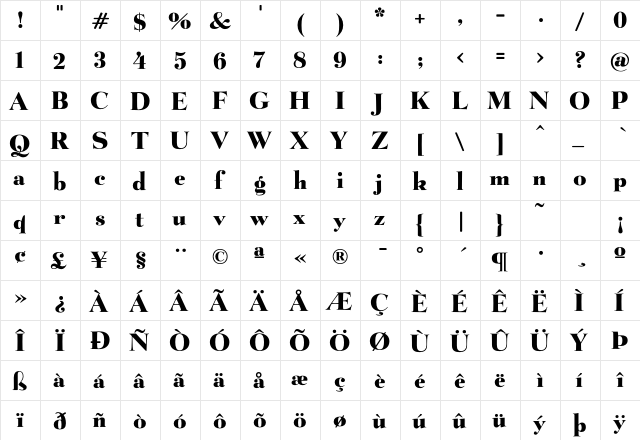
BeLucian FB Ultra Regular
| Foundry | The Font Bureau, Inc |
Design Context for BeLucian FB Ultra Typeface
BeLucian FB Ultra takes a measured approach to typography — its balanced proportions and neutral character make it a reliable workhorse for both digital and print work.
Originally released in 1988, this typeface is available in OpenType (OTF) format.